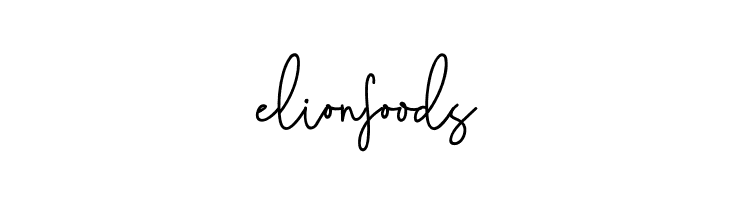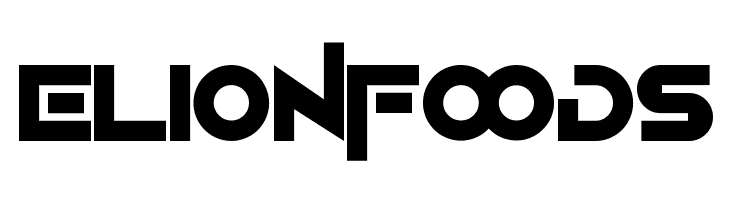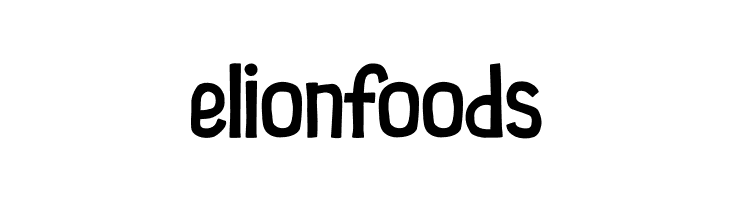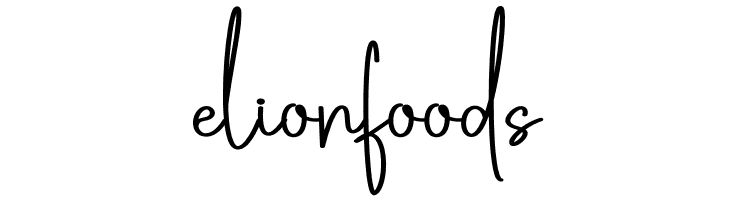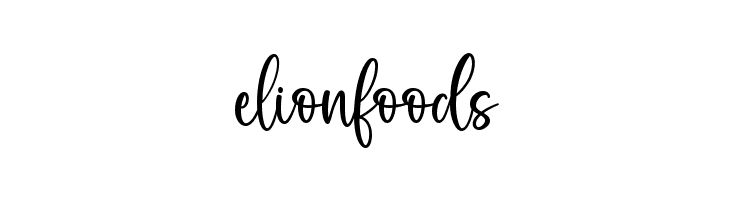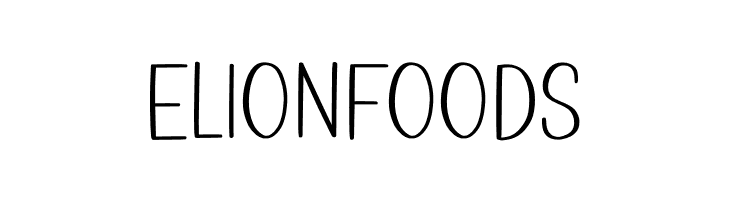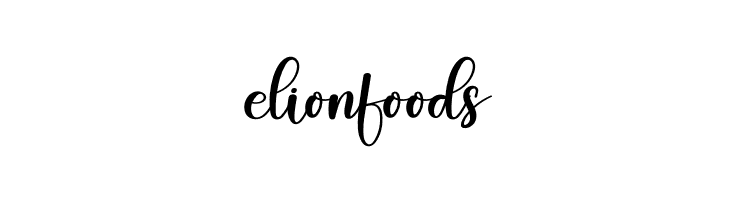
A bold, brush-style script font with dynamic, hand-painted strokes.
A playful and elegant handwritten script font with a dynamic flow.
A graceful and flowing script font with a handwritten style.
A bold, playful handwritten font with rounded, irregular letterforms.
A handwritten, cursive font with fluid strokes and a personal touch.
Thin, airy handwritten script with tall, narrow forms.
A graceful and flowing script font with a handwritten style.
A bold, angular script font with a modern, edgy style.
A bold, brush-stroke style font with dynamic and artistic flair.
A modern, stencil-inspired font with bold, geometric characters.
A playful and elegant script font with a handwritten touch.
A dynamic and elegant script font with flowing, slightly slanted letterforms.
An elegant script font with flowing, cursive letterforms and graceful swashes.
A bold, hand-drawn font with jagged, expressive strokes.
A fluid and elegant script font with connected letterforms.
Expressive script with bold swashes and ornate flourishes.
A whimsical and flowing script font with elegant, interconnected letterforms.
A modern, geometric font with thin, continuous lines and artistic flair.
A playful, handwritten font with smooth curves and medium contrast.
Playful rounded sans-serif with a handwritten, casual style.
An elegant font with modern and vintage elements, featuring decorative serifs and smooth curves.
A modern, elegant script font with flowing, cursive letterforms and medium contrast.
A classic and elegant script font with flowing, cursive letterforms.
A bold, dynamic script font with a handwritten style.
A dynamic and expressive handwritten font with fluid, cursive strokes.
A lively, flowing script font with elegant cursive letters and artistic flair.
An elegant, flowing script font with thin, delicate strokes and graceful curves.
A playful and casual handwritten font with fluid strokes and dynamic character forms.
A playful, handwritten font with dynamic and elongated letterforms.
A lively and expressive handwritten font with fluid, dynamic strokes.
A bold, modern sans-serif font with thick, uniform strokes.